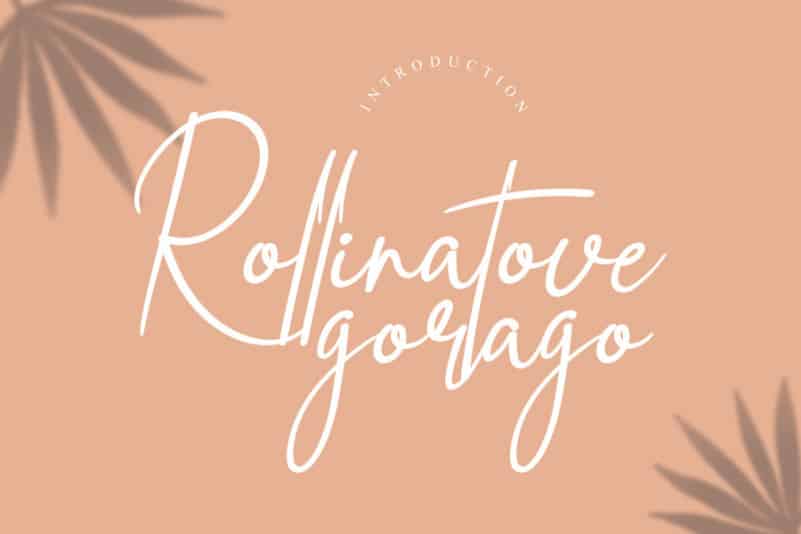
Rollinatove Handwritten Font
Rollinatove Handwritten Font is a delicate and distinct handwritten font. Get creative with its incredibly elegant and timeless style and use it to create gorgeous wedding invitations, beautiful stationary art, eye-catching social media posts, and much more!
The latest style letters are perfect for wall displays, wedding invitations, social media post logos, advertisements, product packaging, product designs, labels, photography, watermarks, invitations, stationery, and any project that requires taste handwriting.